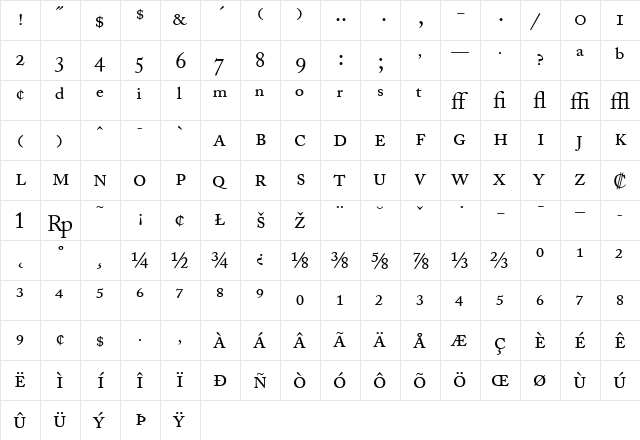
ACaslonExp Regular Regular
Design Context for ACaslonExp Regular Typeface
ACaslonExp Regular takes a measured approach to typography — its balanced proportions and neutral character make it a reliable workhorse for both digital and print work.